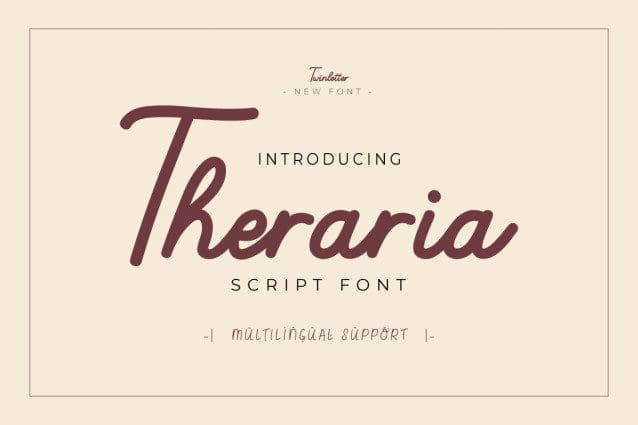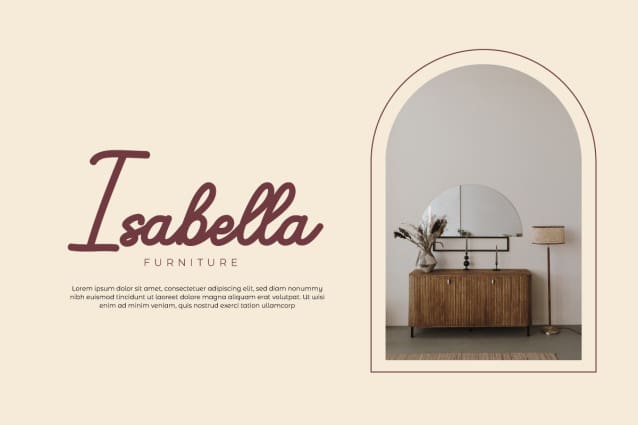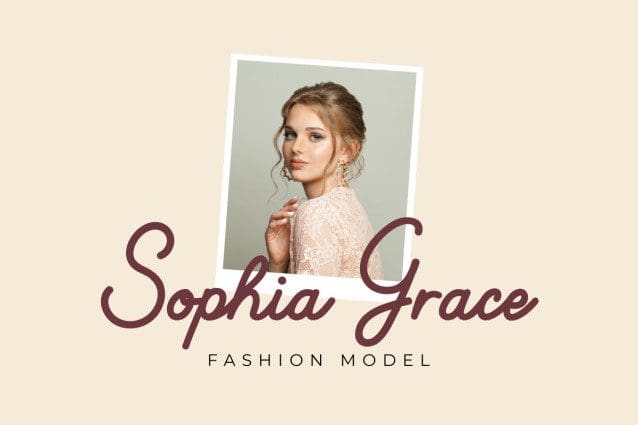
Theraria Script Font
Theraria Script Font is a beautiful handwritten font. It will elevate a wide range of design projects to the highest level, be it branding, headings, wedding designs, invitations, signatures, logos, labels, and much more!